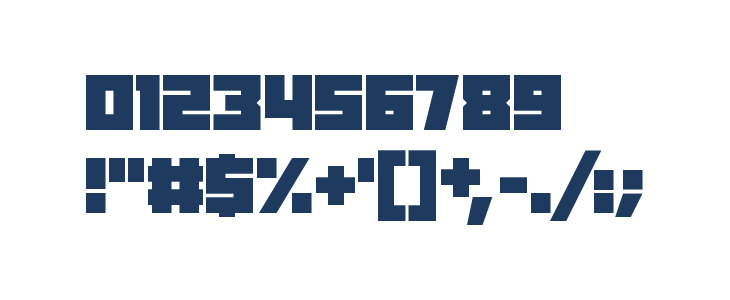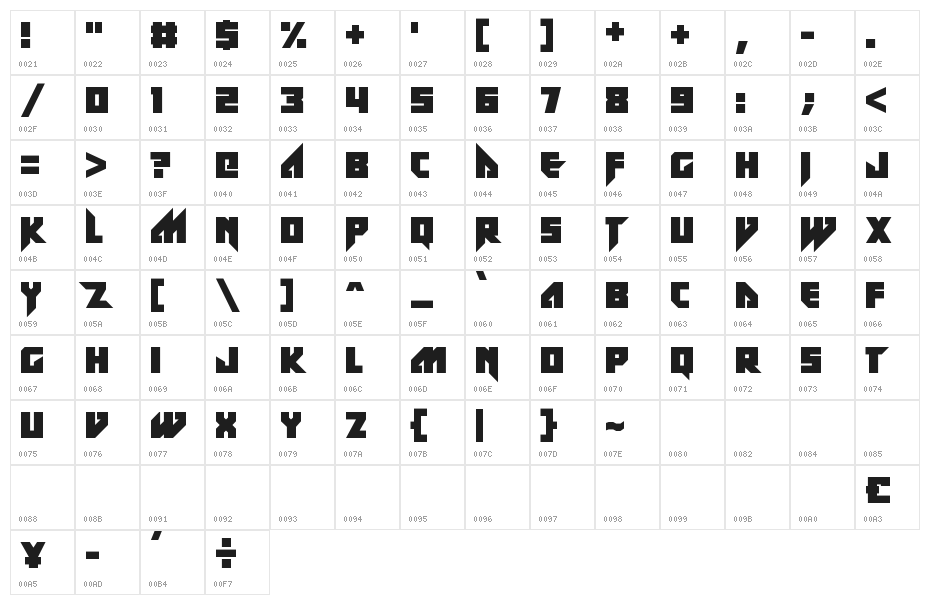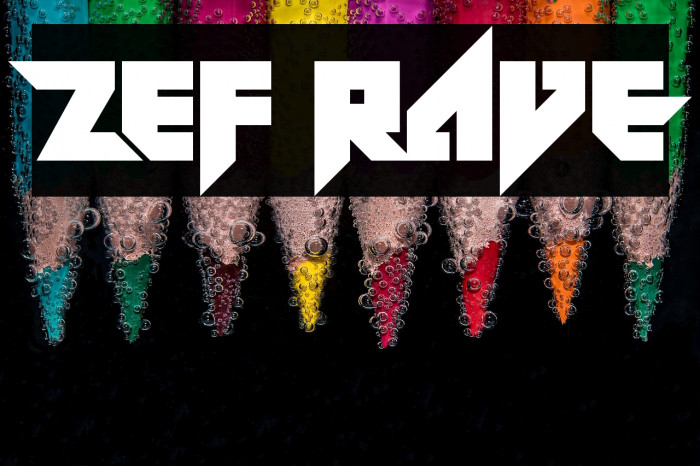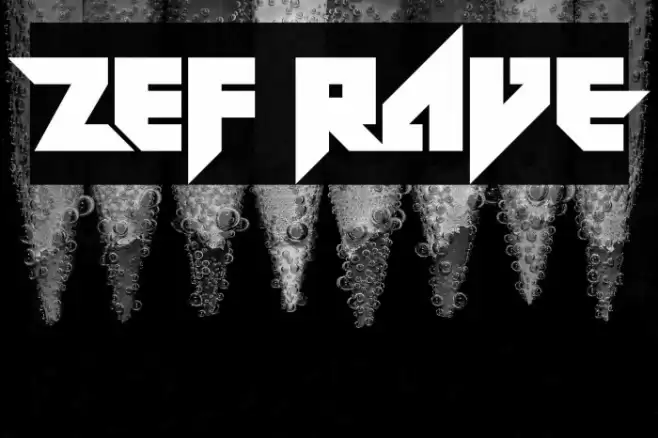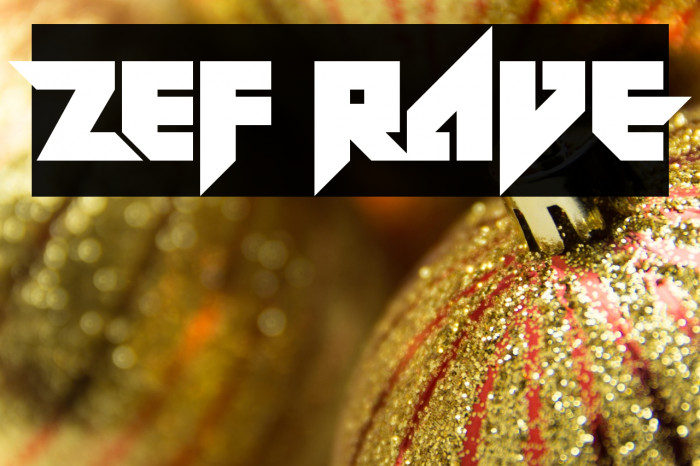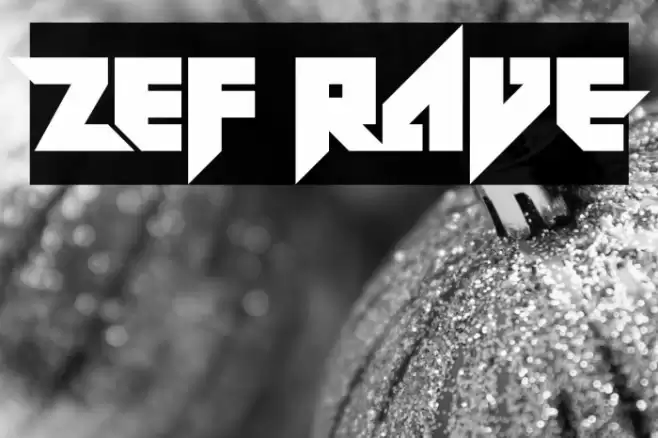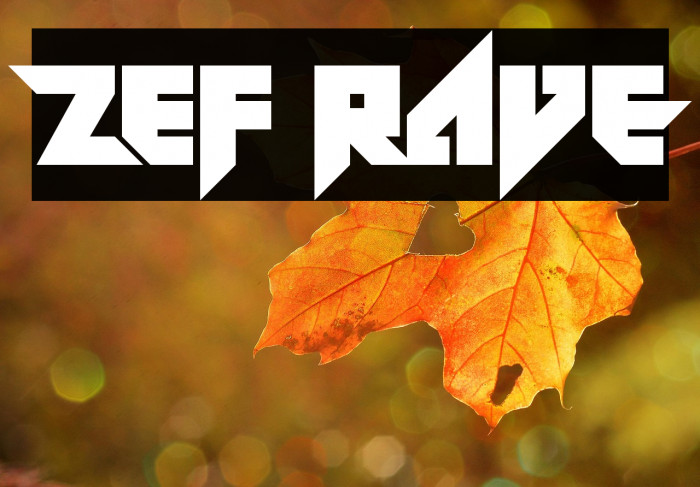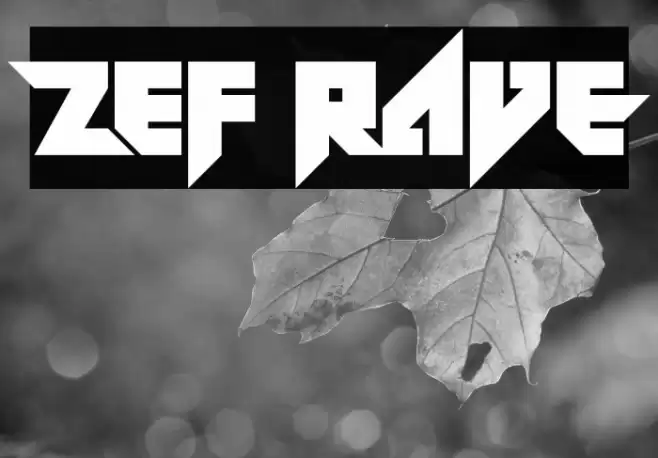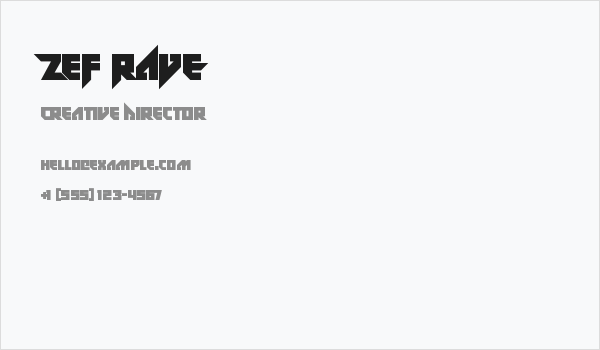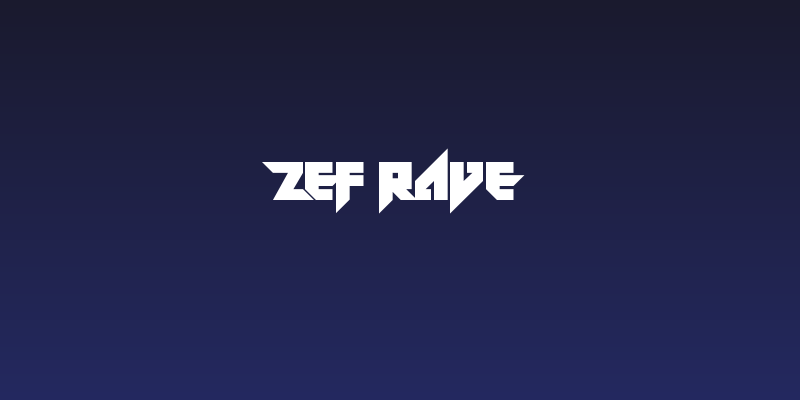
ZeF RAVE Font
ZeF RAVE Description
This font features a bold and angular design, characterized by sharp edges and geometric shapes. Each letter is crafted with a futuristic aesthetic, giving it a distinct and edgy appearance. The uppercase and lowercase letters maintain a consistent style, with a strong emphasis on symmetry and uniformity. The numerals and special characters follow the same design principles, ensuring a cohesive look across all elements. This font's unique style makes it stand out, ideal for projects that require a modern and striking visual impact.
| Proposed Projects | Ideal for music festival posters, video game titles, sci-fi book covers, and branding for tech companies. |